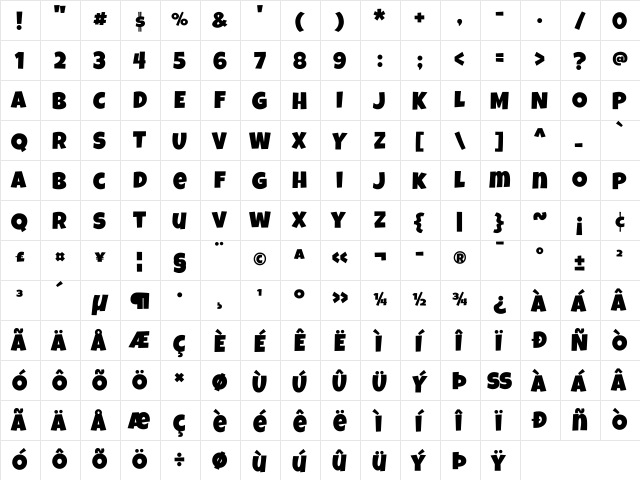
Luckiest Guy Regular
| Foundry | Astigmatic (AOETI) |
| Designer | Astigmatic (AOETI) |
| Year | 2010 |
Design Context for Luckiest Guy Typeface
Luckiest Guy offers clean, dependable letterforms without strong stylistic allegiance, making it a practical choice for designers who need flexibility.
Pro Tip: Pair Luckiest Guy with a font of contrasting weight or personality to build a more expressive typographic hierarchy.